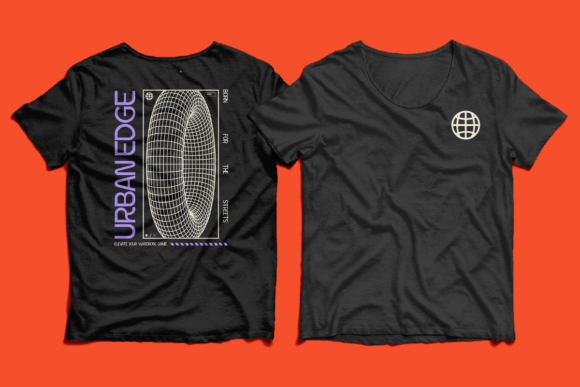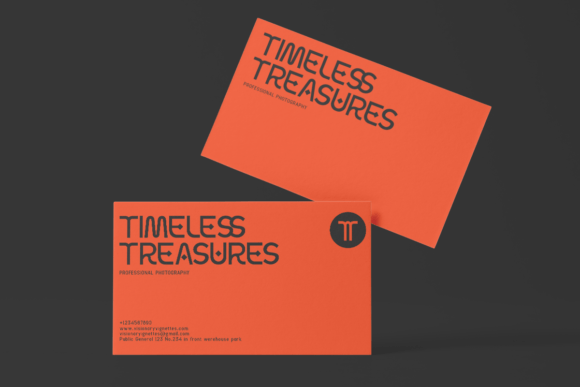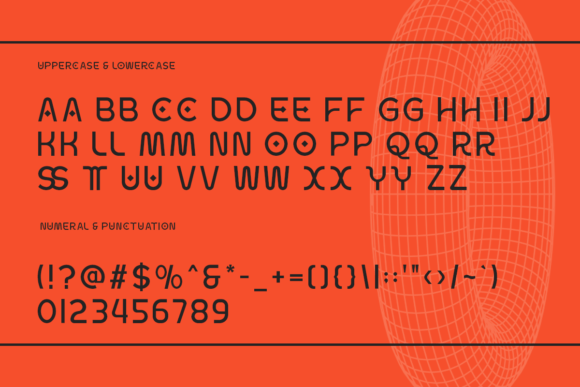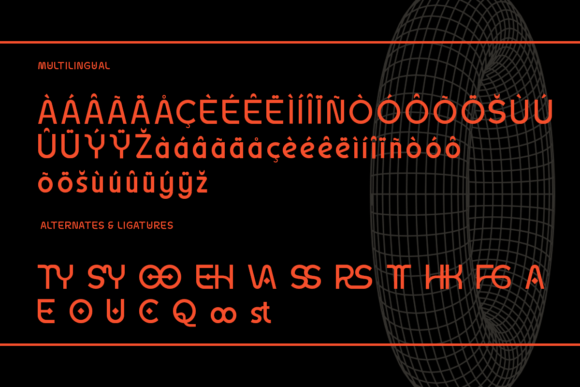
Meet Avensy: The Modern Typeface Elevating Designs with Refined Simplicity
The Avensy Advantage: A Perfect Blend of Style and Functionality
Avensy is a sleek and modern typeface designed to elevate your designs with its refined simplicity. This versatile font seamlessly blends contemporary aesthetics with clean, crisp lines, making it an ideal choice for a wide array of design projects, including branding, logos, packaging, editorial layouts, and web design.
What I Love About Avensy ✨
- ✅ Exceptional readability across digital and print formats
- ✅ Beautifully crafted to convey both bold statements and subtle elegance
- ✅ Highly versatile, suitable for a wide range of design projects
- ✅ Clean and crisp lines for a modern aesthetic
- ⚠️ Some users may find the font too minimalist for certain projects
- ⚠️ Limited availability of extended language support
The Story Behind Avensy: Designer Inspiration
Avensy was crafted with the modern designer in mind. Its creator aimed to produce a typeface that embodies the perfect balance of style and functionality. Inspired by contemporary architecture and minimalist design principles, Avensy brings a fresh perspective to the world of typography.
| What makes Avensy suitable for branding projects? | Avensy’s clean lines and modern aesthetic make it highly versatile and adaptable, perfect for creating a strong brand identity. |
| Can I use Avensy for both digital and print projects? | Yes, Avensy offers excellent readability and adaptability across both digital and print formats. |
| Does Avensy support OpenType features? | Yes, Avensy comes with a range of OpenType features, glyphs, and stylistic alternates, allowing for creative and customizable typography. |
| Is Avensy easy to read? | Absolutely, Avensy is designed with readability in mind, making it suitable for a wide range of applications, from editorial layouts to web design. |